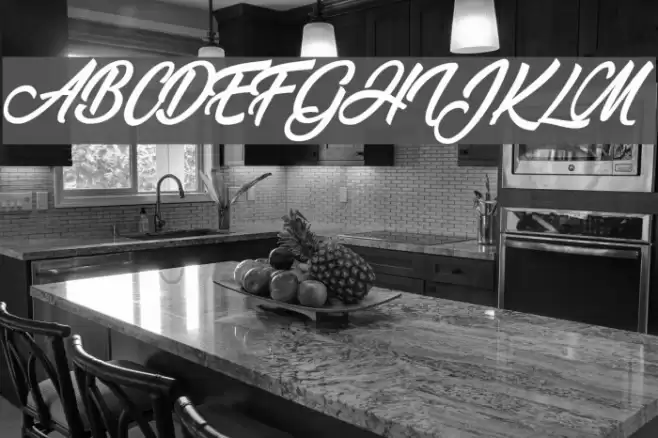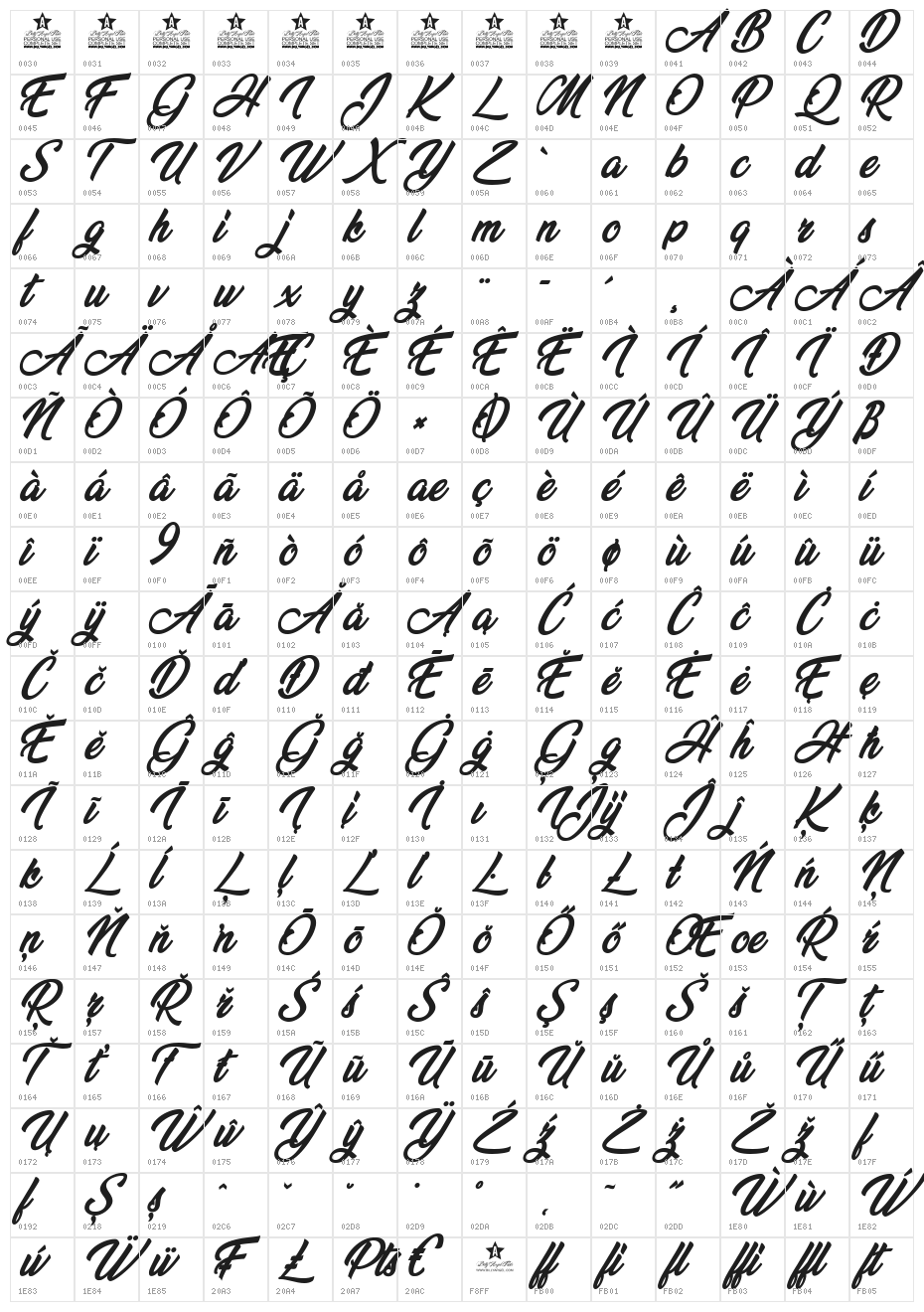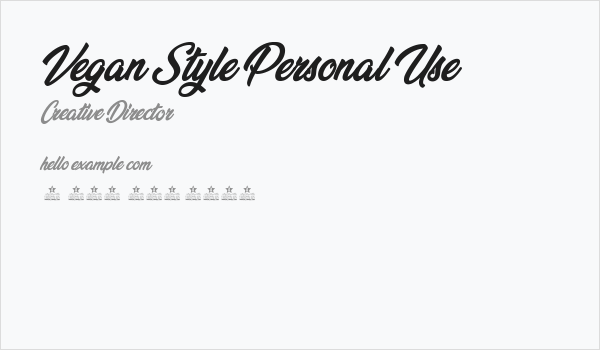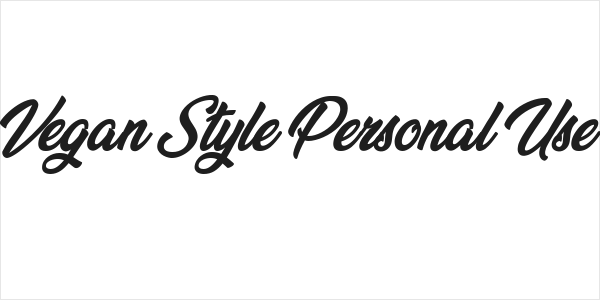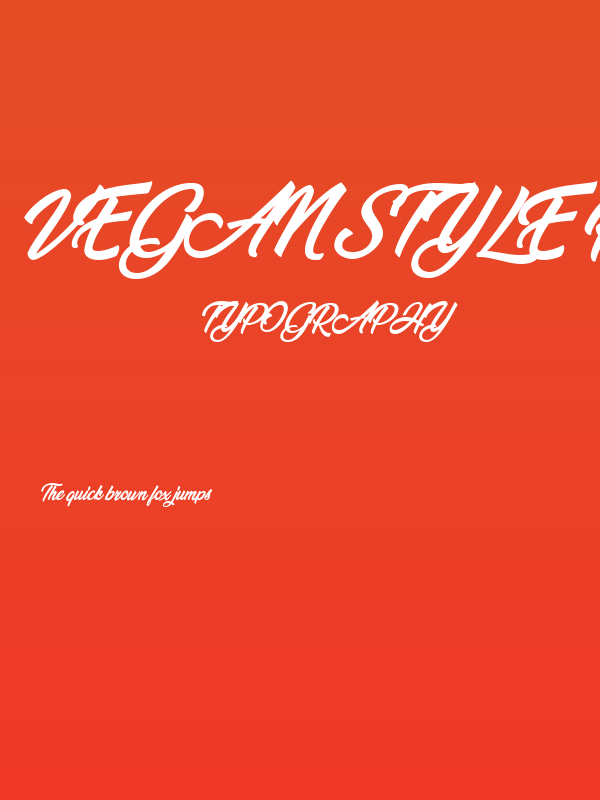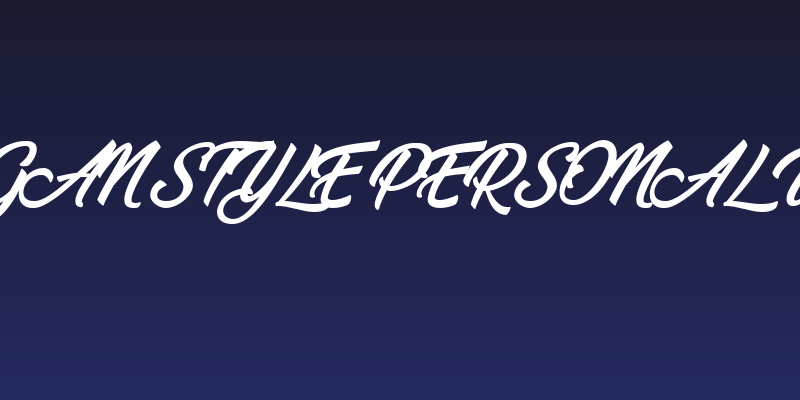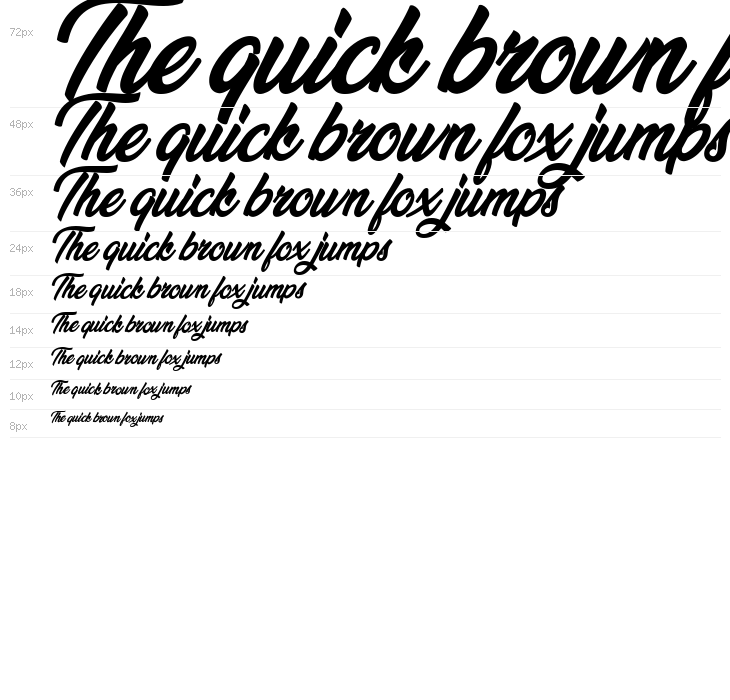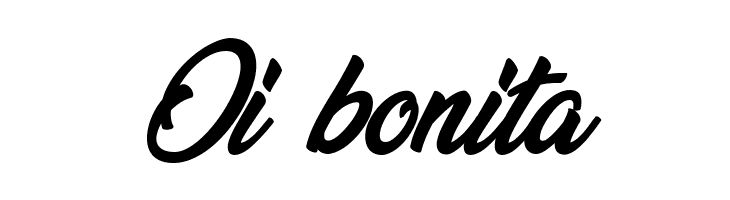
Vegan Style Personal Use Font
Vegan Style Personal Use Description
This font features a bold, flowing script style that exudes elegance and sophistication. The characters are intricately designed with smooth curves and a consistent stroke width, giving it a cohesive and polished appearance. The uppercase letters are particularly ornate, with sweeping lines and flourishes that add a touch of drama. The lowercase letters maintain the same fluidity, ensuring readability while retaining the decorative nature of the font. The overall design is reminiscent of classic calligraphy, making it suitable for projects that require a touch of refinement and grace.
A bold, elegant script font with flowing, calligraphic style from Uncategorized fonts.
- Proposed Projects: Ideal for wedding invitations, luxury branding, greeting cards, and elegant signage.
- Overall Style: Classic
- Use Case: Logos, Headlines, Invitations